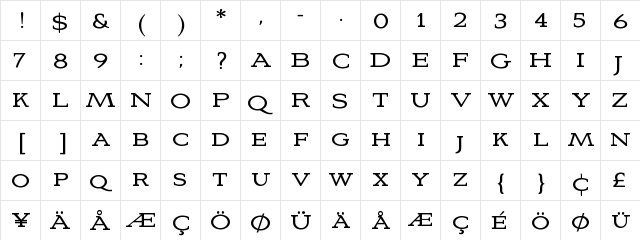
AvianoSlabLight Regular
| Foundry | by Jeremy Dooley |
| Designer | Jeremy Dooley |
Design Context for AvianoSlabLight Typeface
AvianoSlabLight features prominent, blocky serifs that give it a confident, grounded presence — equally at home in editorial settings and bold branding work. The delicate stroke weight brings airiness and refinement to layouts.
Works well in editorial design, news publishing, impactful branding, and poster typography.
Pro Tip: Try AvianoSlabLight set tight in headlines for a classic editorial feel. Its slab serifs create strong horizontal rhythm that anchors a page layout.